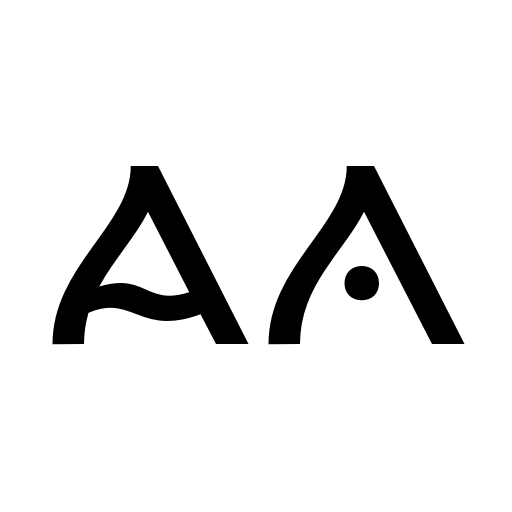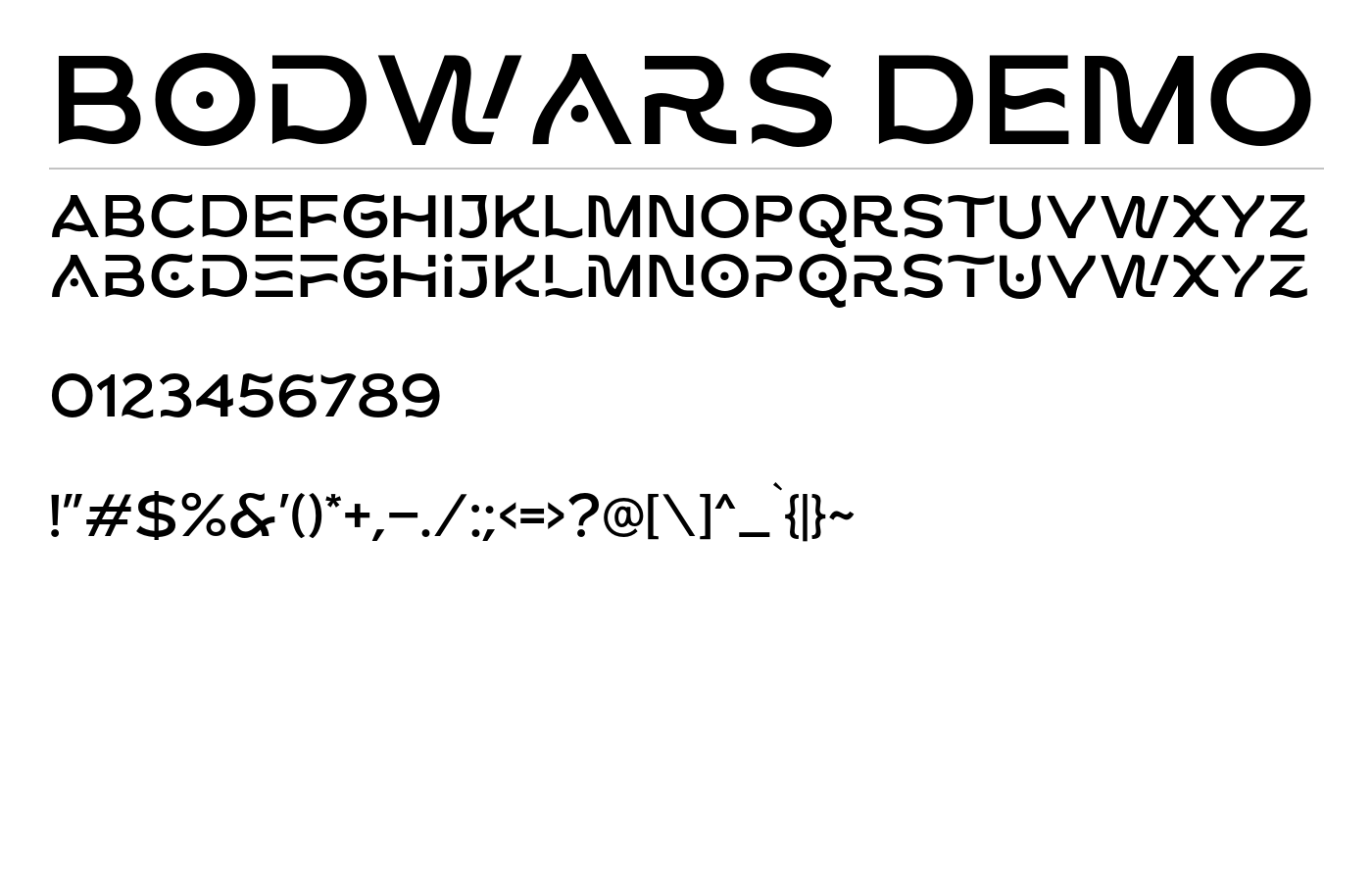
Bodwars DEMO is a unique sans serif font with a futuristic and geometric vibe, featuring bold weight and medium contrast that balances solid forms with playful wave-like curves and sharp angles. Its distinctive letter shapes, including a single-story 'a', stylized 'Q' tails, and creative ligatures, give it a modern, tech-inspired personality perfect for eye-catching logos, posters, and branding projects seeking a cutting-edge, dynamic look. This font works best in display settings where its creative details can stand out and make a memorable visual impact.
Bodwars DEMO Font
About Bodwars DEMO Font